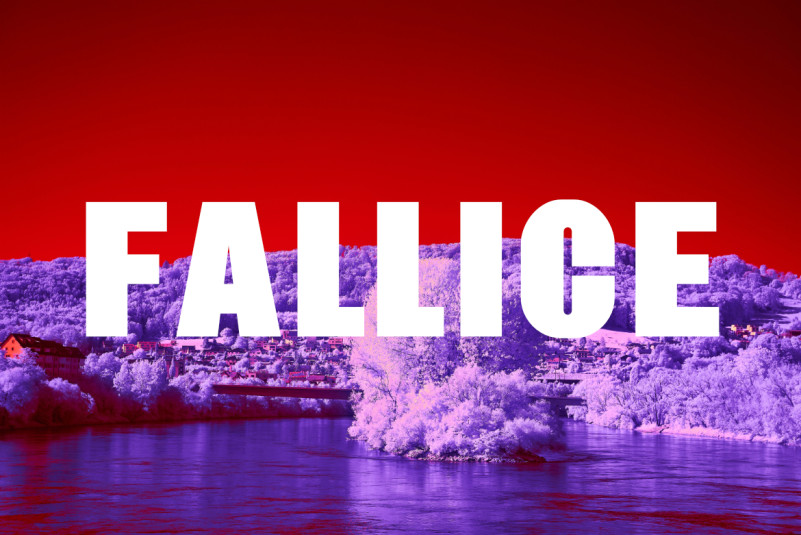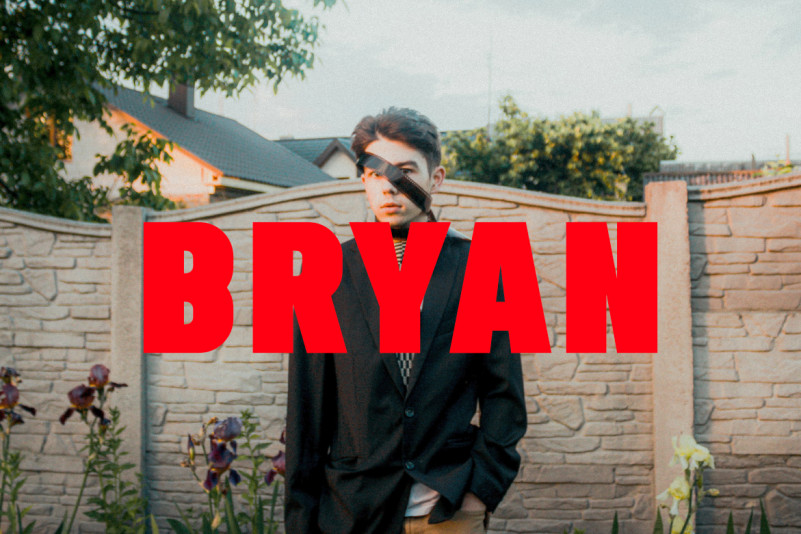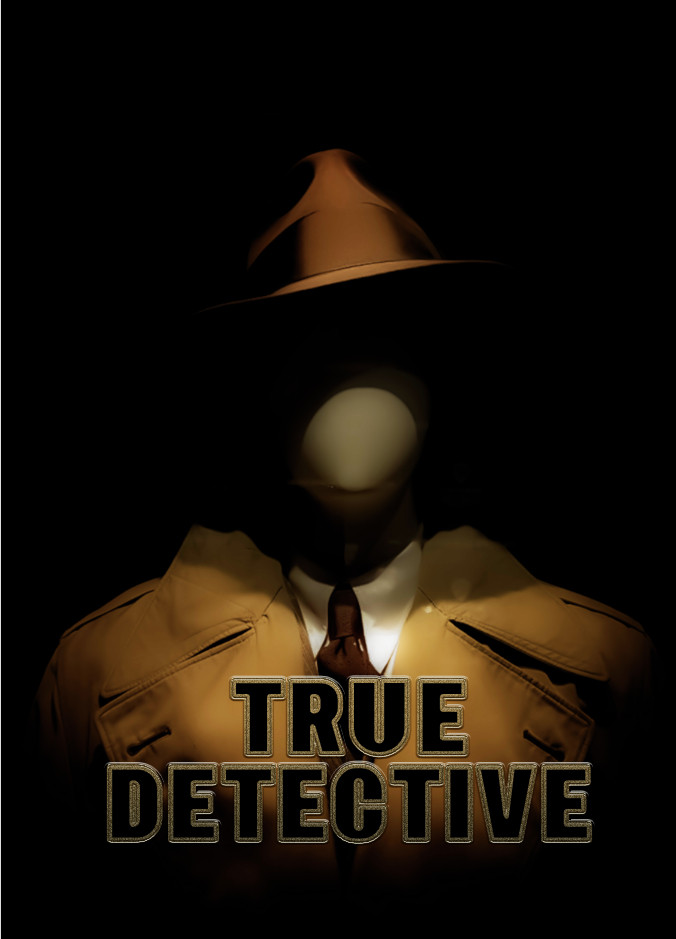
Creatball Font
Creatball Sans Serif Font, is a modern sans serif font. It’s perfect for posters, logos, magazines, cover books, banners, and much more!
creatball is a bold font